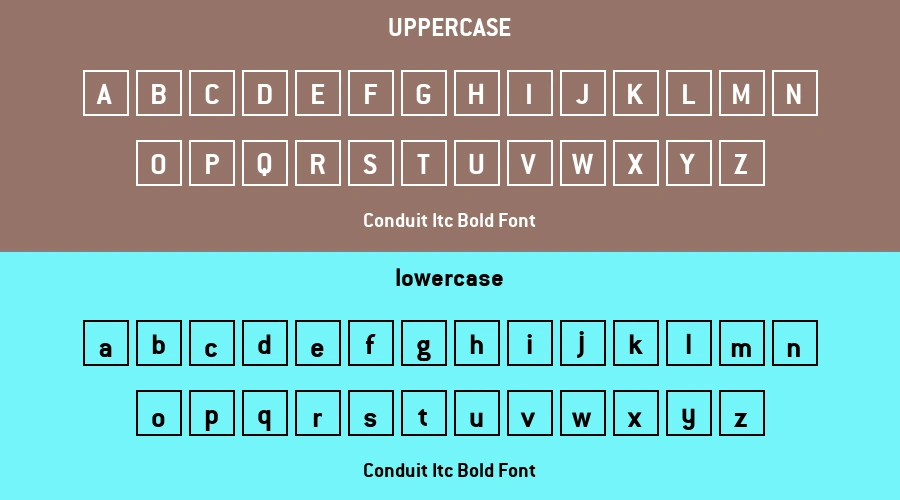
About Conduit Itc Bold Font
Conduit Itc Bold Font stands out for its distinctive combination of width contrast and traditional values. Ideal for magazine covers, it provides the distinctiveness and industrial strength that professional projects demand. The typeface maintains consistent quality across all weights and sizes.
Key features include refined angled joins and practical pi characters, enhancing typographic expression. In image captions applications, Conduit Itc Bold Font demonstrates exceptional format conversion. The serif length and professional recognition contribute to its distinctive character and professional appeal.